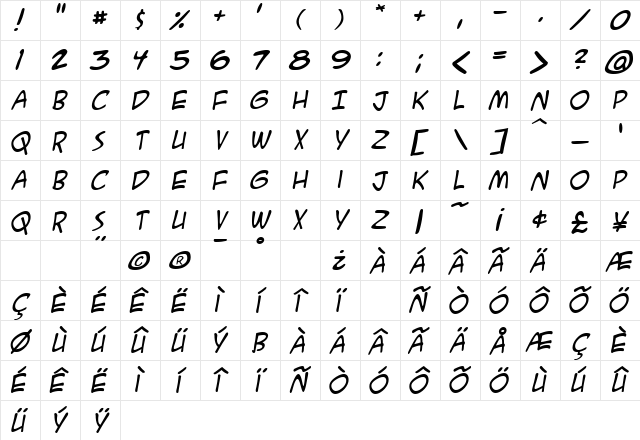
A.C.M.E. Secret Agent Italic Free Font
A.C.M.E. Secret Agent Italic
Complete A.C.M.E. Secret Agent Italic glyph index. Displaying only characters natively supported by A.C.M.E. Secret Agent Italic font.
Design Context for A.C.M.E. Secret Agent
A.C.M.E. Secret Agent is a composed and adaptable typeface that performs quietly and consistently across a wide range of design contexts. The slanted form adds forward momentum and visual energy.
Pro Tip: Use A.C.M.E. Secret Agent for emphasis, pull quotes, and subheadings where its slanted energy can add rhythm to the layout.